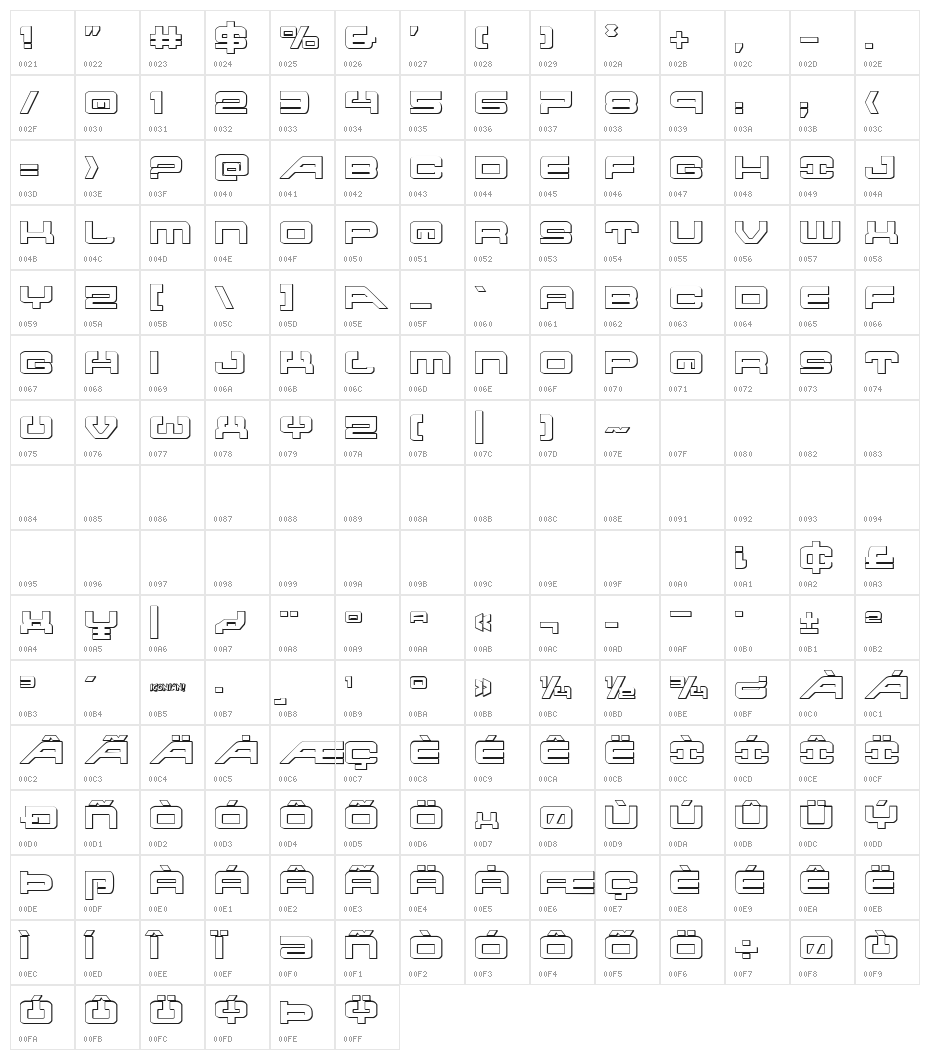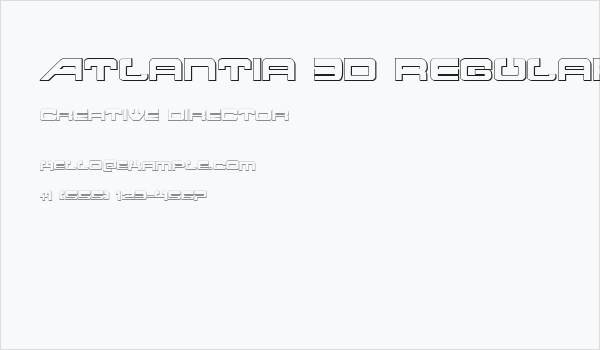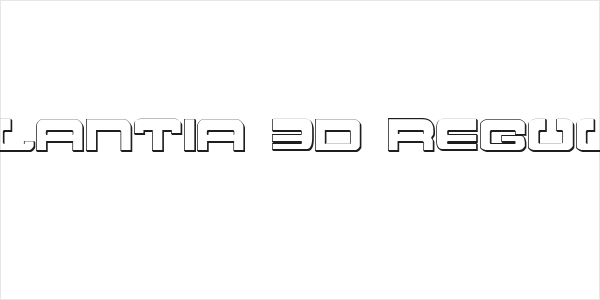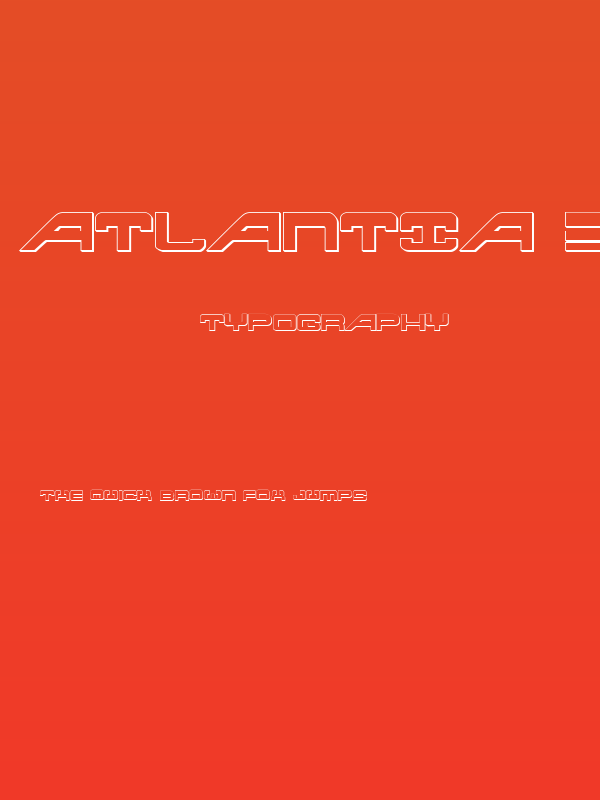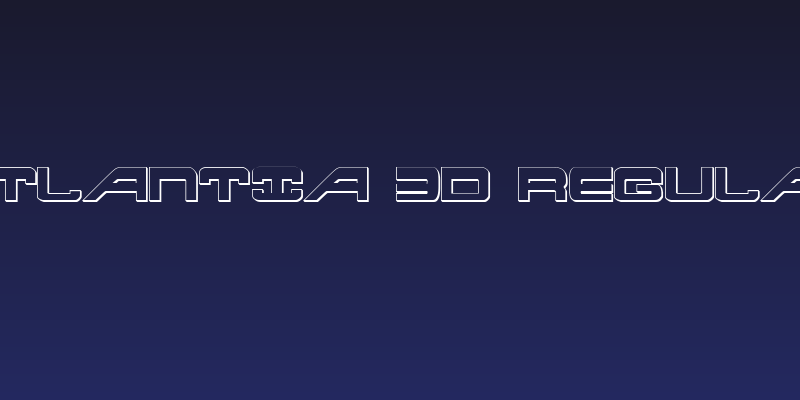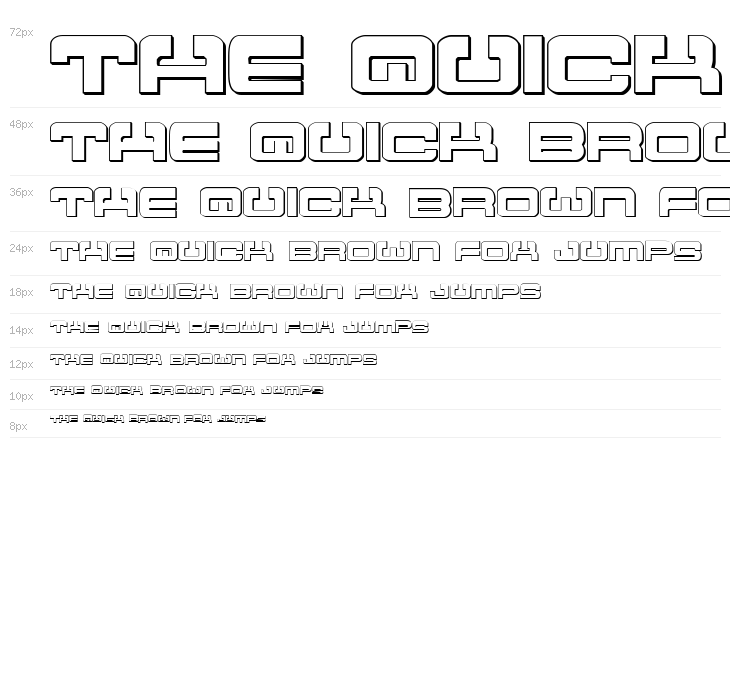
Atlantia 3D Regular Font
Atlantia 3D Regular Description
This font features a bold, futuristic design with a three-dimensional effect. The characters are outlined, giving them a hollow appearance that enhances the 3D illusion. The geometric shapes and sharp angles contribute to a modern and tech-inspired aesthetic. Each letter is distinct, with consistent stroke widths and a uniform height, creating a cohesive look. The numbers and special characters follow the same style, ensuring visual harmony across all elements. This font is ideal for projects that require a contemporary and eye-catching typeface.